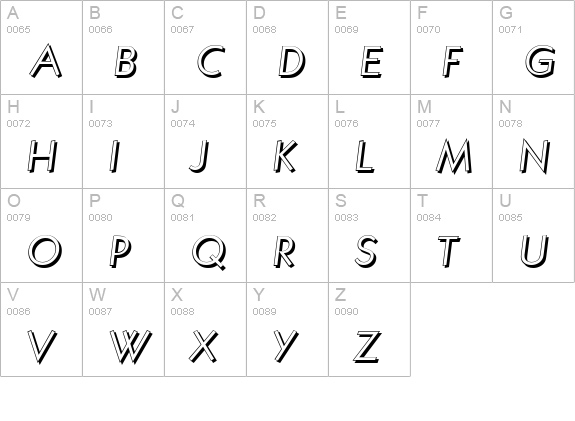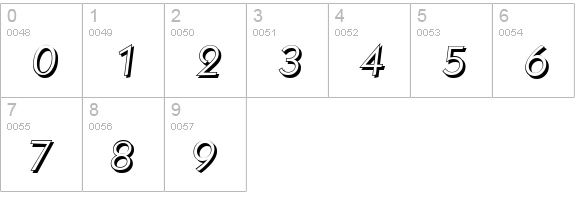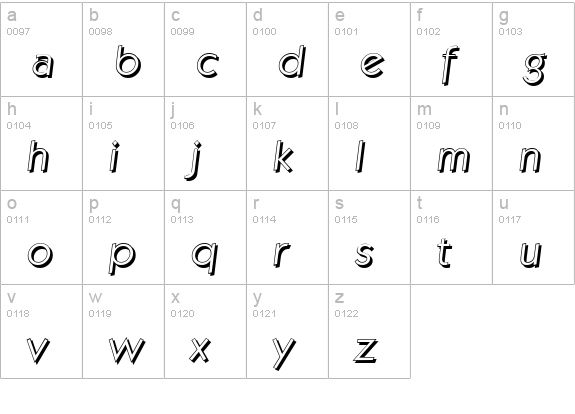
KoblenzShadow-Light-Italic is a refined, elegant, italic variant in the KoblenzShadow typeface family \xE2\x80\x94 well suited to elegant body text, refined sub-headings, and luxury branding.
Introducing KoblenzShadow-Light-Italic, a stunning and elegant font that will add a touch of sophistication to your design projects. This unique typeface combines the delicate balance of shadow and light with a subtle italicized flair, creating a visually appealing and modern look. KoblenzShadow-Light-Italic is perfect for a wide range of design applications, from branding and advertising to packaging and web design. Its versatility makes it a valuable addition to any designer's toolkit. The best part? KoblenzShadow-Light-Italic is available for free download at FontsMarket.com. Don't miss out on the opportunity to elevate your designs with this beautiful and stylish font. Download it today and see the difference it can make in your projects!